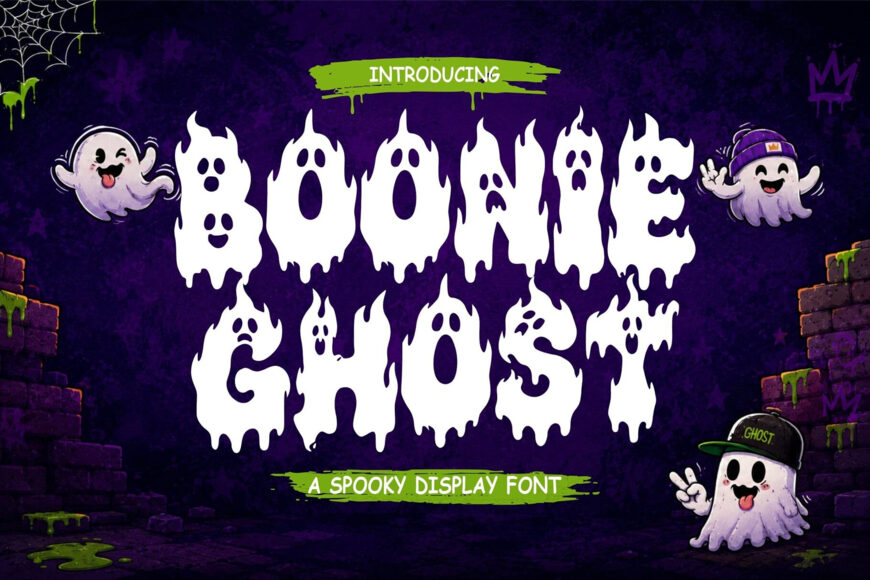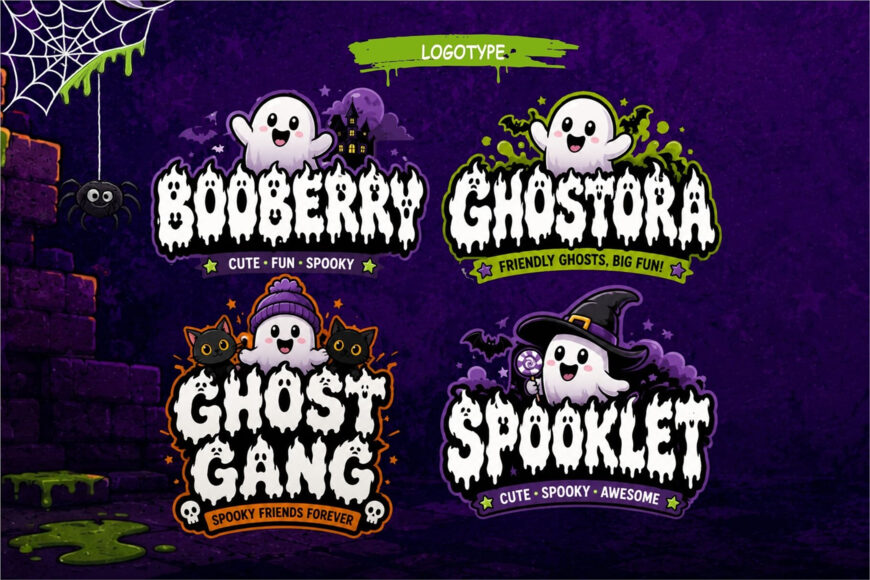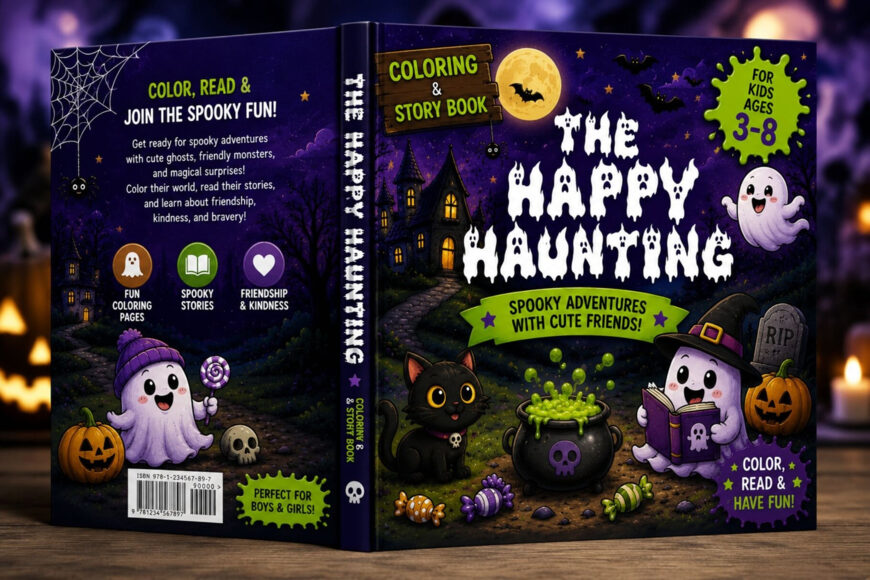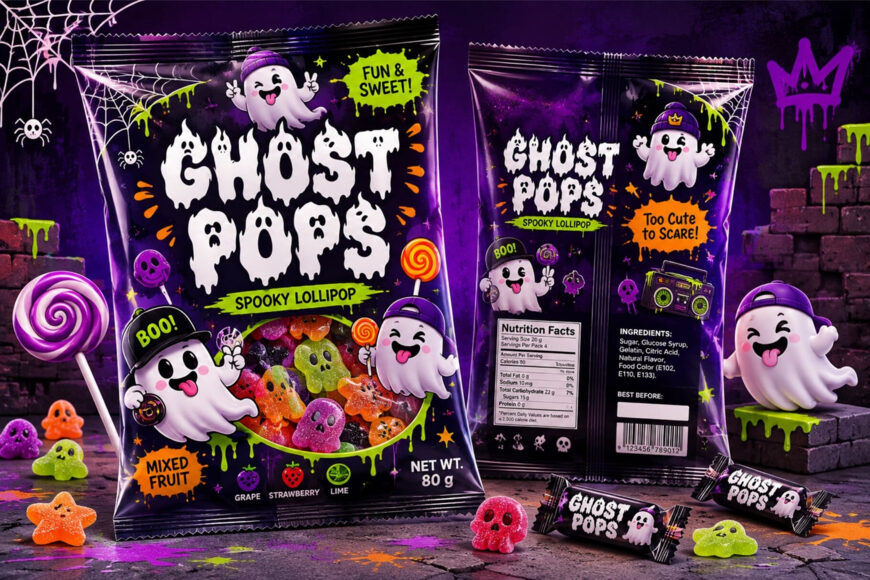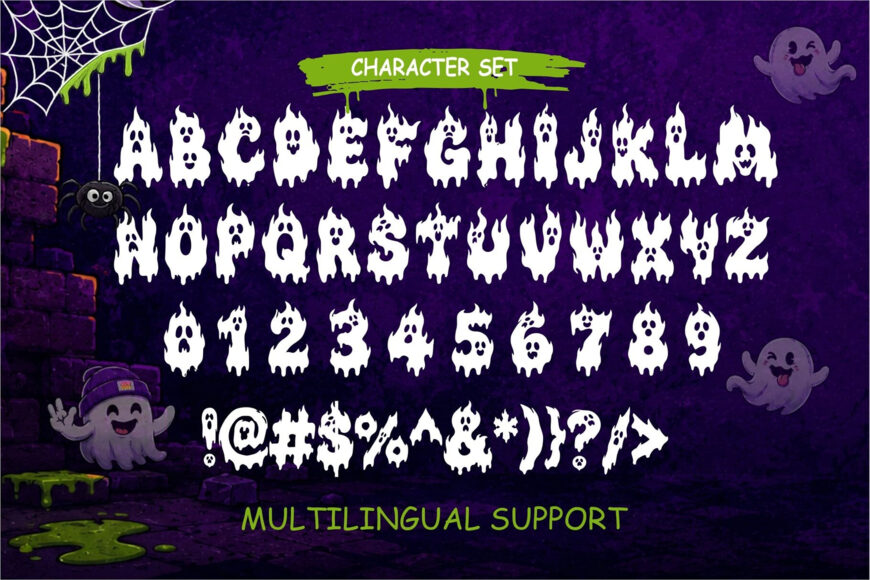
Boonie Ghost Font
Add spooky fun, playful haunts, and Halloween magic to your graphics with Boonie Ghost, a spooky display font! Each letterform is lovingly shaped like a floating phantom complete with wavy ghost silhouettes, dripping hems, and expressive little ghost faces.
Whether you’re designing trick-or-treat bags, Halloween party invitations, cute spooky apparel, children’s storybook titles, sticker packs, or custom craft SVG cut files, Boonie Ghost brings an irresistibly playful haunt to every project!